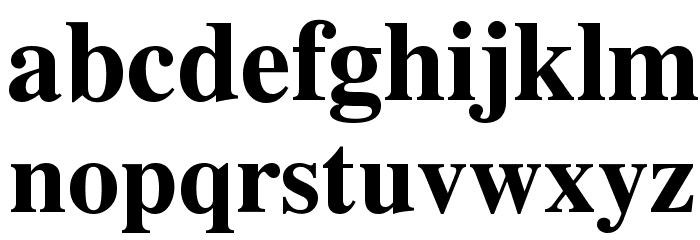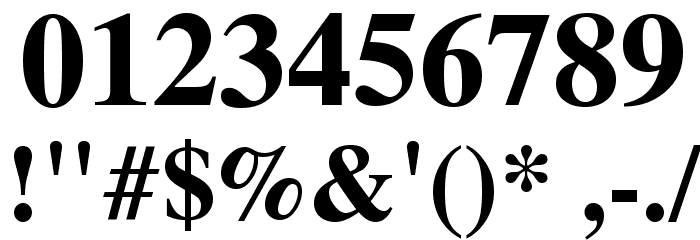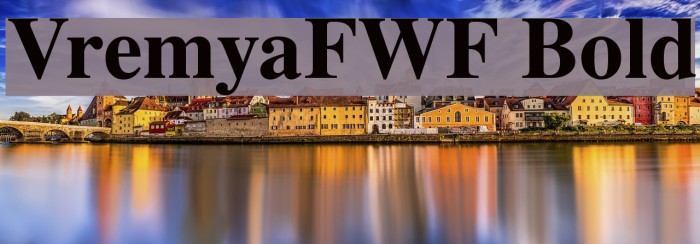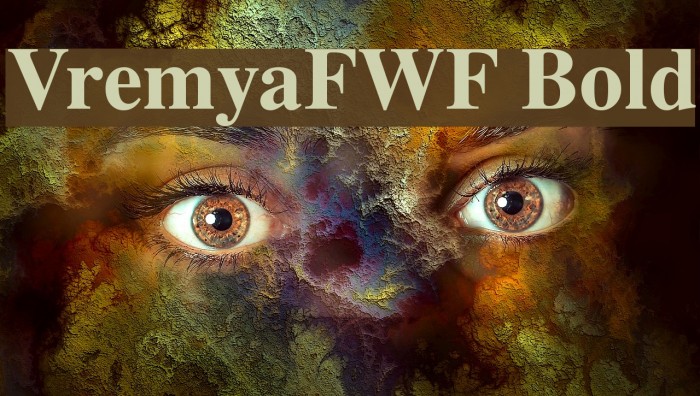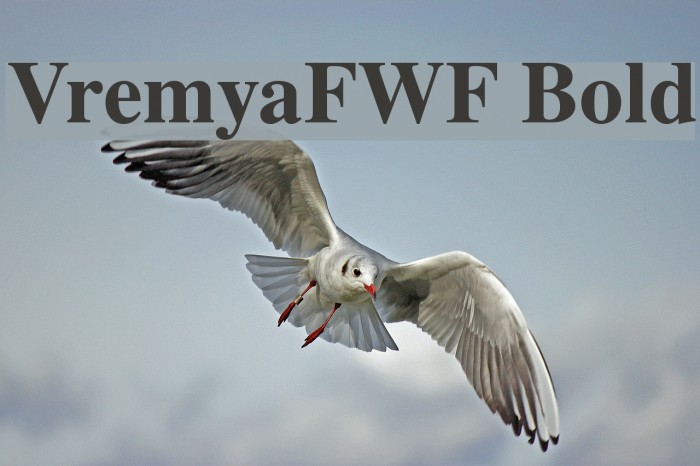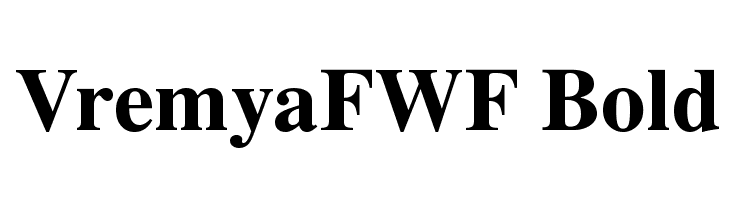
VremyaFWF Bold Font
This font features a bold and commanding presence with its strong, thick strokes and high contrast between thick and thin lines. The serifs are pronounced, adding a classic and authoritative feel to the typeface. The uppercase letters are robust and impactful, while the lowercase letters maintain a consistent weight, ensuring readability and balance. The numerals are clear and distinct, making them suitable for various applications. Special characters are well-defined, enhancing the font's versatility. Overall, this typeface exudes a sense of tradition and reliability, making it ideal for formal and professional settings.
A bold, high-contrast serif font with a classic and authoritative style.
- Proposed Projects: Ideal for use in headlines, editorial design, branding, and formal invitations.
- Overall Style: Classic
- Use Case: Headlines, Editorial design, Branding